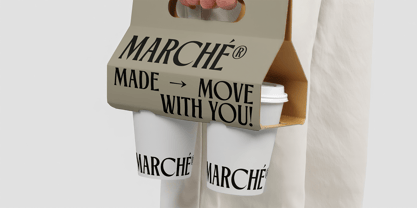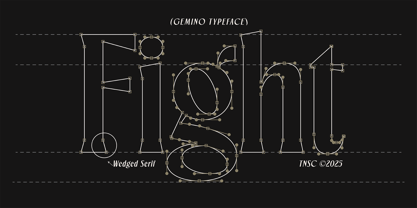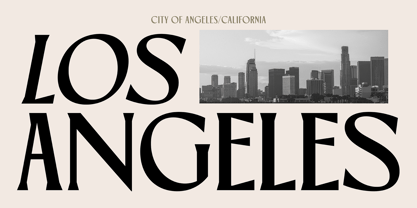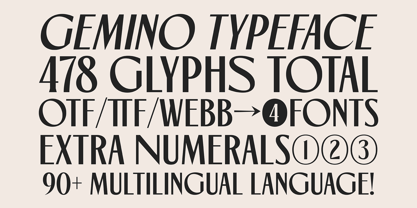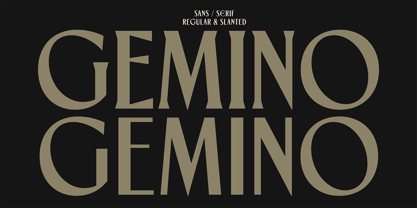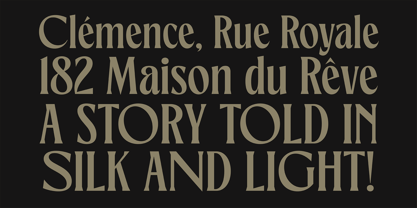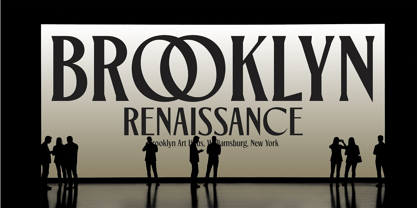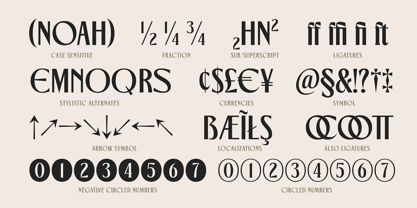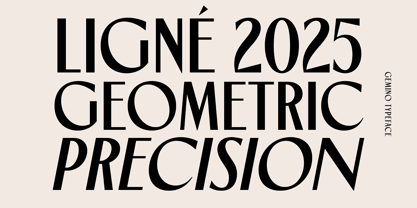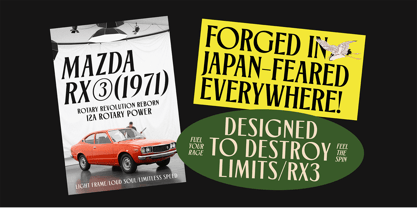
TNSC Gemino
by The Native Saint Club
The TNSC Gemino Font Family was designed by Bagas Ferdiansah, Septianto Nugroho and published by The Native Saint Club. TNSC Gemino contains 4 styles and family package options. More about this family
TNSC GEMINO is a modern typeface crafted with a bold editorial spirit and a refined sense of elegance. With 478 glyphs, multilingual support, alternates, ligatures, and both Sans and Serif styles, from luxury fashion identities and magazine headlines to posters, packaging, and stylish social content, this typeface brings a polished and elevated look to any project.